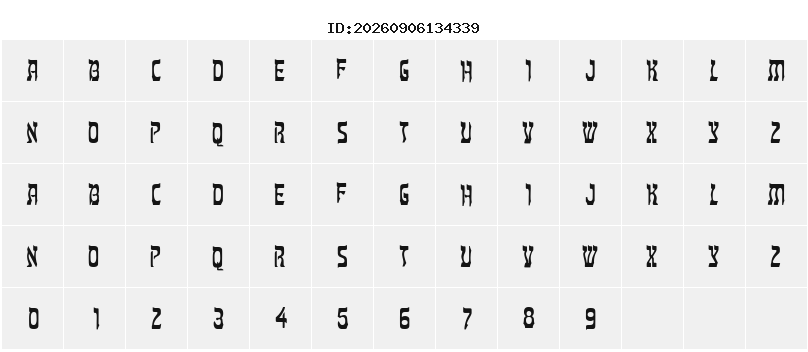
• Font Name: Tanach
• Designer: Typographer Mediengestaltung
• Manufacturer: Typographer Mediengestaltung
• Description: Tanach ist eine Antiqua, die hebraeische Buchstaben nachahmt. Geeignet fuer Plakate und Betitelung mit Bezug zu Israel oder dem Judentum. (Tanach ist der Name fuer die hebraeische Bibel)